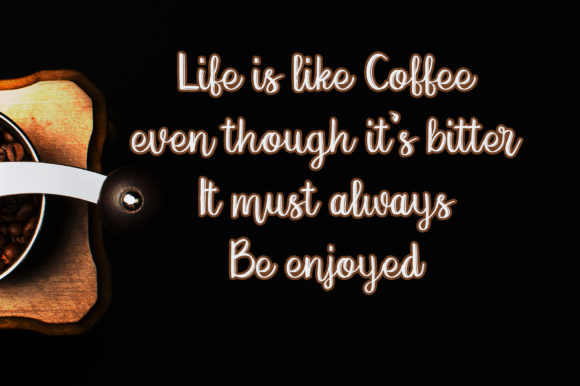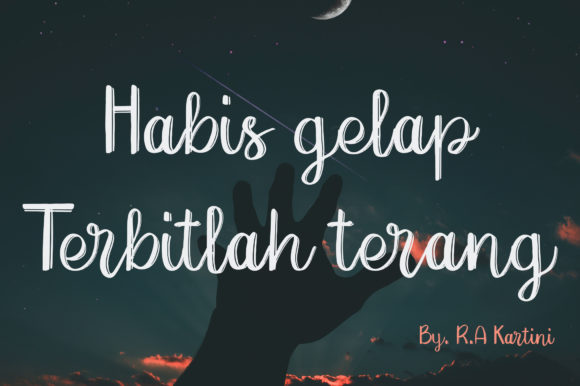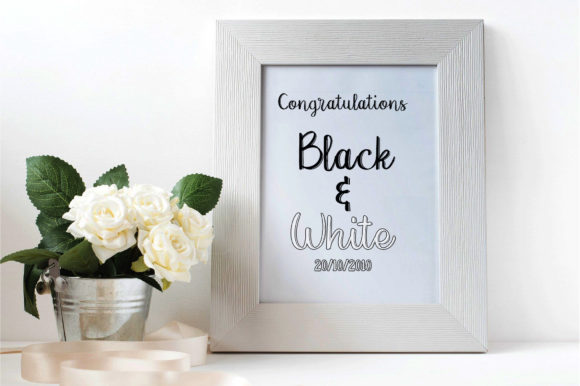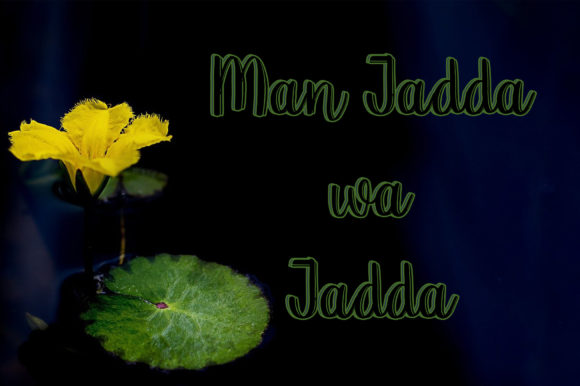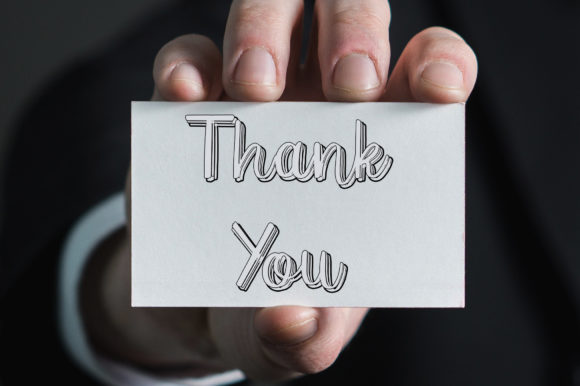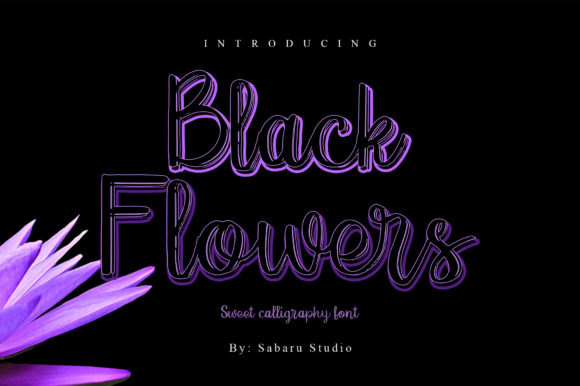
Introducing Black Flowers Font: A Delicate and Elegant Handwritten Script
Are you a designer or crafter looking for a font that exudes elegance and sophistication? Look no further than Black Flowers Font, a beautiful handwritten script that is sure to elevate your designs to the next level. In this article, we’ll take a closer look at the features and benefits of Black Flowers Font, and explore how it can be used to create stunning visual content.
A Delicate and Elegant Handwritten Font
Black Flowers Font is a delicate, elegant, and flowing handwritten font that is perfect for a wide range of design projects. Its beautiful and well-balanced characters make it an ideal choice for designers and crafters who want to add a touch of sophistication to their work. Whether you’re creating a wedding invitation, a logo, or a social media graphic, Black Flowers Font is sure to impress.
Key Features of Black Flowers Font
- Delicate and elegant design: Black Flowers Font features a beautiful, flowing script that is both delicate and elegant.
- Well-balanced characters: Each character in Black Flowers Font is carefully crafted to ensure that the font is well-balanced and visually appealing.
- Versatile: Black Flowers Font can be used for a wide range of design projects, from wedding invitations to logos and social media graphics.
- Easy to read: Despite its elegant design, Black Flowers Font is easy to read, making it perfect for body text and headlines.
Benefits of Using Black Flowers Font
So why choose Black Flowers Font for your design projects? Here are just a few benefits of using this beautiful font:
- Adds elegance and sophistication: Black Flowers Font adds a touch of elegance and sophistication to any design project.
- Versatile: Black Flowers Font can be used for a wide range of design projects, making it a great addition to any designer’s toolkit.
- Unique: Black Flowers Font is a unique and distinctive font that will help your designs stand out from the crowd.
Using Black Flowers Font in Your Designs
So how can you use Black Flowers Font in your designs? Here are a few ideas to get you started:
- Wedding invitations: Black Flowers Font is perfect for wedding invitations, adding a touch of elegance and sophistication to your design.
- Logos: Black Flowers Font can be used to create beautiful and elegant logos that will help your brand stand out.
- Social media graphics: Black Flowers Font is perfect for social media graphics, adding a touch of elegance and sophistication to your posts and stories.
- Stationery: Black Flowers Font can be used to create beautiful and elegant stationery, including letterheads, business cards, and more.
Tips for Getting the Most Out of Black Flowers Font
Here are a few tips for getting the most out of Black Flowers Font:
- Use it sparingly: Black Flowers Font is a beautiful font, but it can be overwhelming if used too much. Use it sparingly to add a touch of elegance and sophistication to your design.
- Pair it with other fonts: Black Flowers Font can be paired with other fonts to create a unique and visually appealing design.
- Experiment with different colors: Black Flowers Font looks great in a variety of colors, so don’t be afraid to experiment and find the perfect color for your design.
Black Flowers Font is a beautiful and elegant handwritten font that is perfect for designers and crafters who want to add a touch of sophistication to their work. With its delicate and flowing design, well-balanced characters, and versatility, Black Flowers Font is sure to become a favorite in your design toolkit. Whether you’re creating a wedding invitation, a logo, or a social media graphic, Black Flowers Font is the perfect choice.